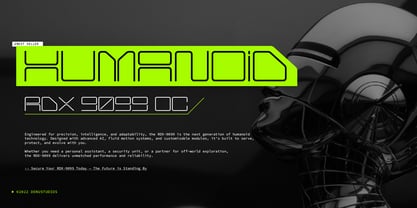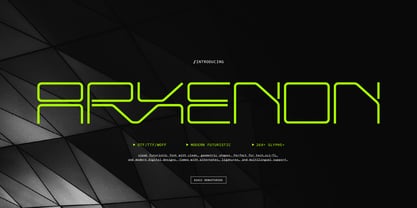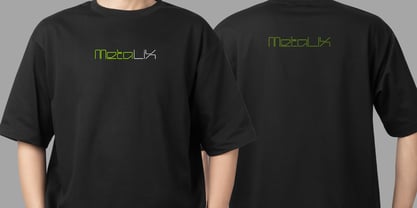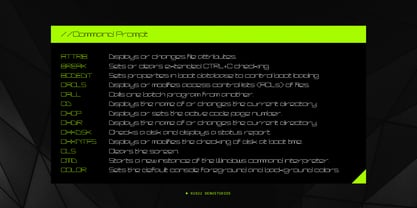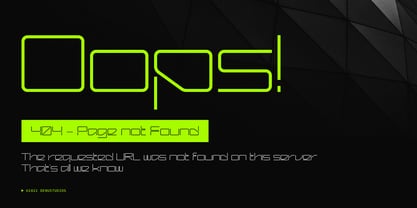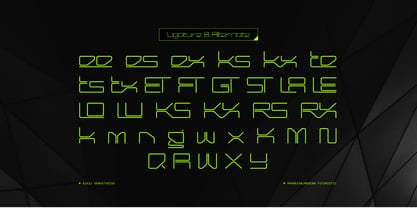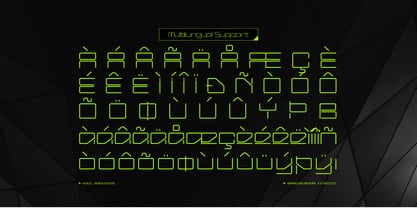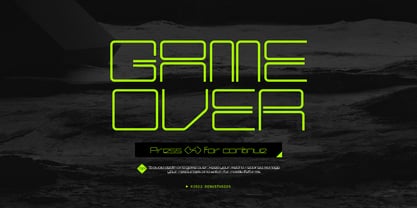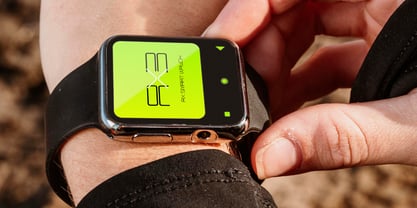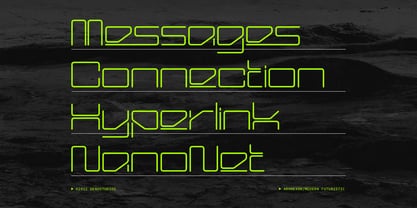
Arxenon
The Arxenon Font Family was designed by Dede Nugraha and published by Denustudio. Arxenon contains 1 styles. More about this family
Arxenon | Modern Futuristic, from Denustudios, suitable for any projects such as: logos, branding projects, homeware designs, product packaging, mugs, quotes, posters, shopping bags, t-shirts, book covers, name card, invitation cards, greeting cards, label, photography, watermark, special events, and all your other lovely projects that need Futuristic Font a taste.